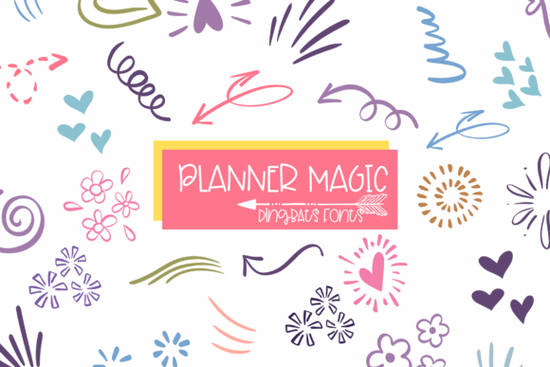
If you're looking for a friendly, hand-drawn dingbats font that works beautifully in planners, bullet journals, and printable stationery, Planner Magic Font is a thoughtful choice. It’s not just another decorative font it’s a set of carefully crafted doodle-style icons designed to feel personal and approachable. Each character is a small illustration: arrows that point with purpose, hearts with soft edges, tiny flowers, gentle swirls, and delicate sparkles all drawn in a consistent, light line style that never overwhelms your layout.
What can you actually do with Planner Magic?
This isn’t a font you’ll use for long paragraphs or headlines. It’s meant for moments where a visual cue matters more than text like marking priorities in a weekly spread, adding charm to a habit tracker, or turning blank space into intentional decoration. Because it’s a dingbats font (meaning each key on your keyboard triggers an icon, not a letter), it’s simple to type and preview in real time no complex layers or vector editing needed.
It’s especially handy if you design for print-on-demand or sell digital downloads. You can drop Planner Magic straight into Canva, Cricut Design Space, or Silhouette Studio and start building planner stickers, printable cover pages, or themed sticker sheets. Teachers use it for classroom reward charts; scrapbookers layer it over photos for subtle accents; small business owners add it to product labels or packaging notes for a warm, handmade feel.
Why does this style work so well in planners and journals?
Hand-drawn elements signal care and intention. Unlike rigid, geometric icons, the slight variation in line weight and shape in Planner Magic makes layouts feel human like something you’d sketch yourself, but with more consistency and polish. That’s why it pairs so naturally with bullet journaling: it supports your system without competing with your handwriting or content.
You’ll find it works best when used sparingly and with breathing room. Try pairing it with clean sans-serif fonts for headers, or neutral script fonts for titles letting the doodles act as punctuation rather than decoration overload. It also scales well: small enough for margin notes, large enough for section dividers or page headers.
No extra plugins or converters needed. And because it’s a single-line, low-detail design, it cuts cleanly on vinyl and prints crisply even at small sizes important if you’re making physical stickers or iron-on transfers.
Who’s using it and how?
We’ve seen crafters combine Planner Magic with floral clipart bundles to build themed printable kits. Print-on-demand sellers use it to add small, joyful accents to mug mockups and tote bag designs things that stand out without shouting. One teacher we spoke with uses the arrow icons to guide students through step-by-step worksheets, while a small stationery brand layers the hearts and swirls into their monthly subscription box inserts.
If you enjoy fonts like Whimsy Dingbats Font or Ink Scribble Font, you’ll likely appreciate how Planner Magic balances simplicity with personality. It doesn’t try to do everything just one thing, really well.